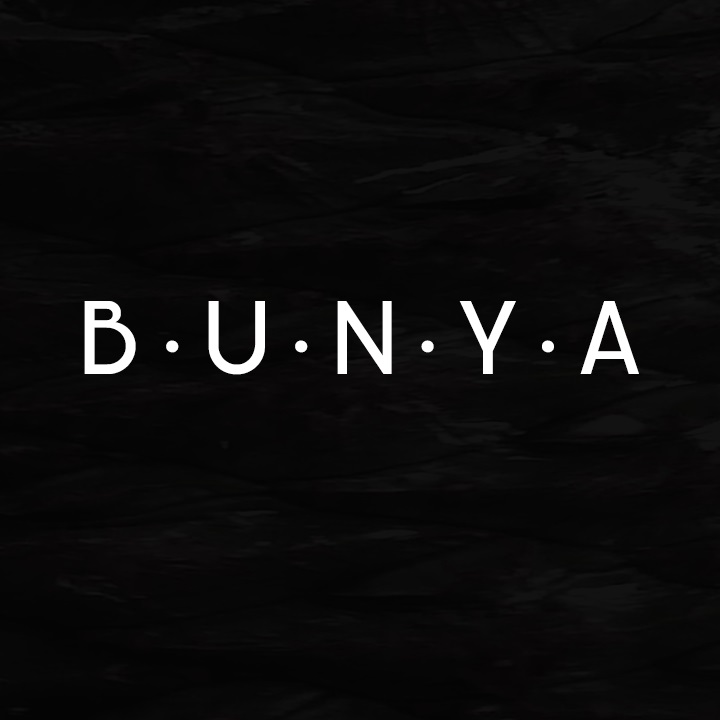
Bunya Font
Bunya Font is a high quality Sans Serif font that is designed by Mans Greback and is available for free download and personal use. The free version provides all uppercase and lowercase letters and a few special characters too.
Bunya Sans Serif Font